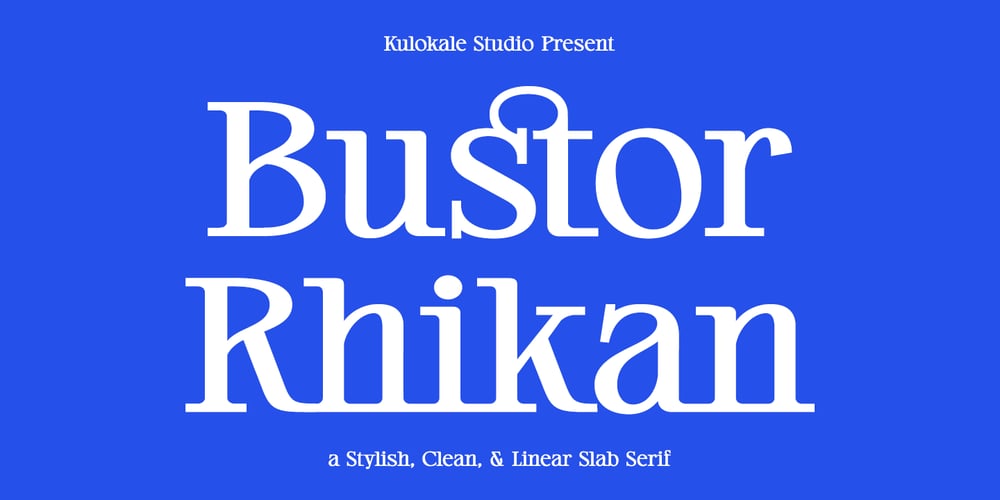
Bustor Rhikan Font Family was designed by Eko Nur Cahyo and published by Kulokale. Bustor Rhikan contains 2 styles and family package options. Bustor Rhikan is a stylish, clean, and linear slab serif font, with style that is very different from the others. This font comes in two styles, Regular and Oblique Version.Bustor Rhikan is well-suited for posters, social media, headlines, magazine titles, clothing, large print formats – and wherever you want to be seen. Inspired by the style of design that is currently popular, and this is the answer to all the needs of every idea that you will pour in this modern era.We highly recommend using a program that supports OpenType features and Glyphs panels such as Adobe Illustrator, Adobe Photoshop CC, Adobe InDesign, or CorelDraw, so you can see and access all Glyph variations.This font is encoded with Unicode PUA, which allows full access to all additional characters without having special design software. Mac users can use Font Book, and Windows users can use Character Map to view and copy one of the extra characters to paste into your favorite text editor / application.Thank You.